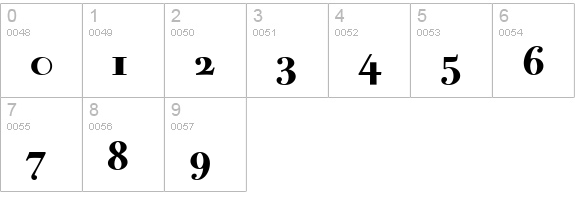
Bodoni Old Face BE Bold Oldstyle Figures Font Details
Bodoni Old Face BE Bold Oldstyle Figures is a strong, high-contrast variant in the Bodoni typeface family \xE2\x80\x94 well suited to headlines, attention-grabbing titles, and strong calls-to-action.
Bodoni Old Face BE Bold Oldstyle Figures font is a classic and elegant typeface that exudes sophistication and timelessness. With its bold strokes and graceful curves, this font is perfect for creating eye-catching headlines, titles, and other design elements. The Oldstyle Figures add a unique touch to any project, giving it a vintage and refined feel. And the best part? This exquisite font is available for free to download at FontsMarket.com. Whether you're working on a design project, creating invitations, or crafting a logo, Bodoni Old Face BE Bold Oldstyle Figures font is sure to elevate your work with its timeless charm and versatility. Don't miss out on this opportunity to enhance your designs with this beautiful and freely available font.